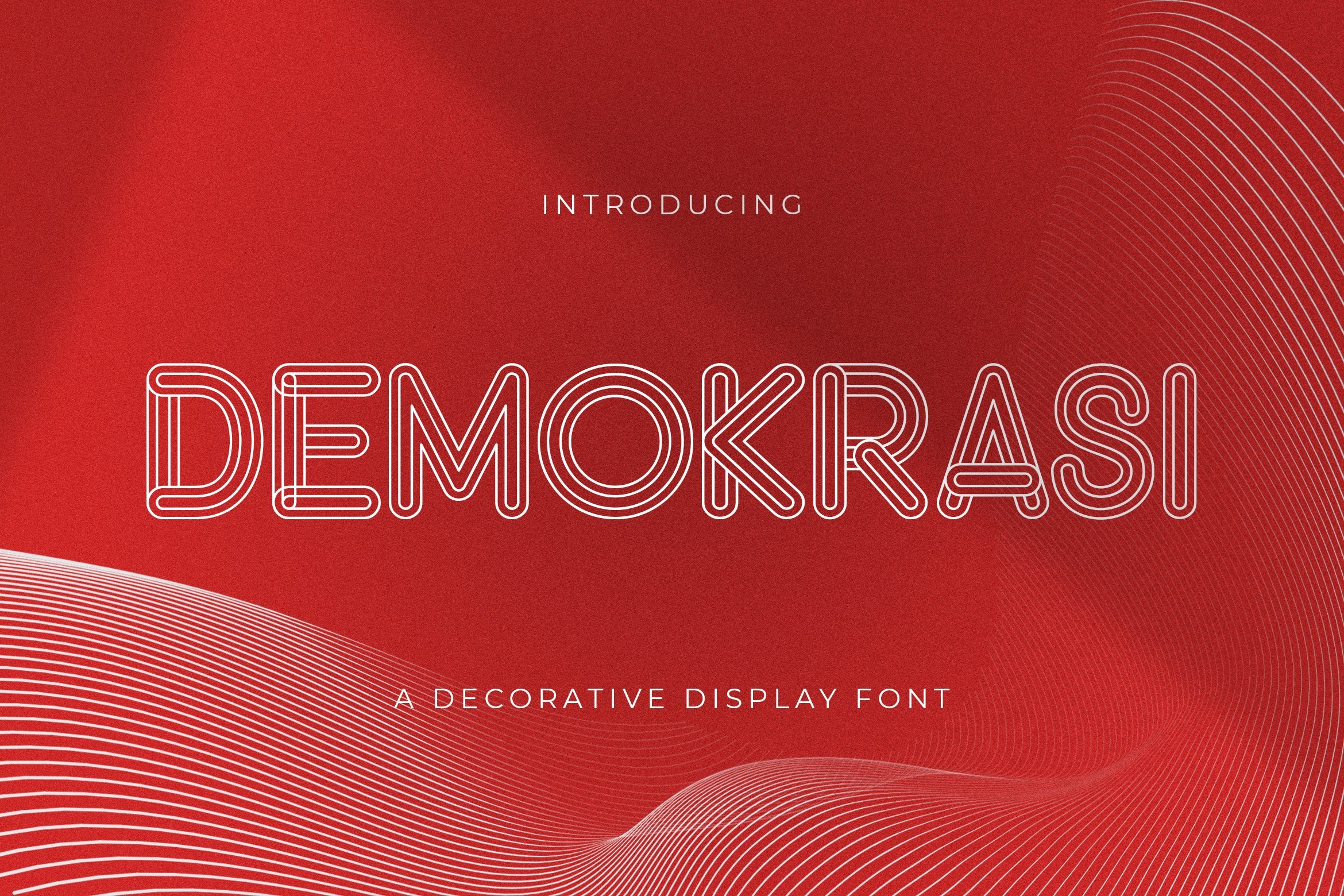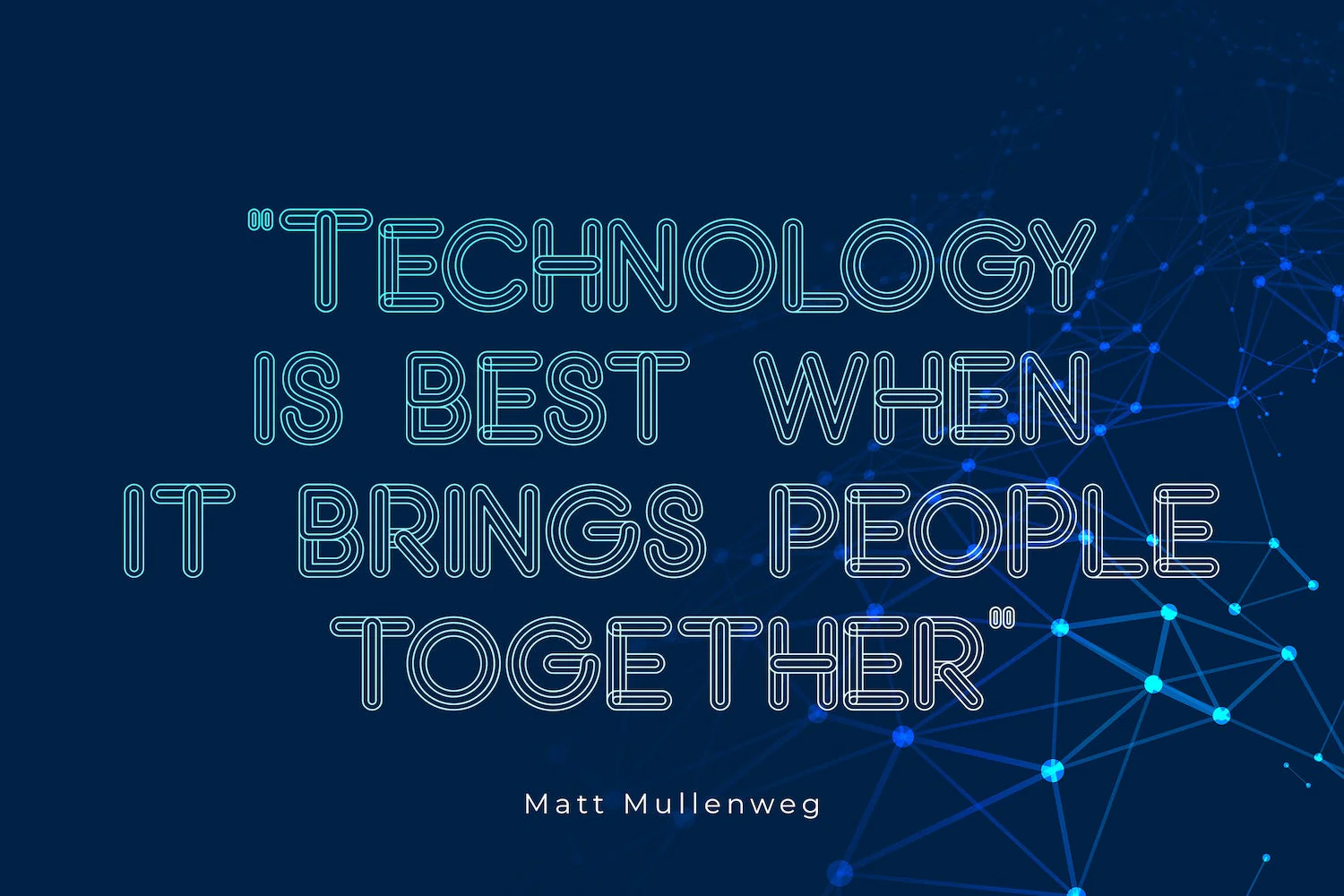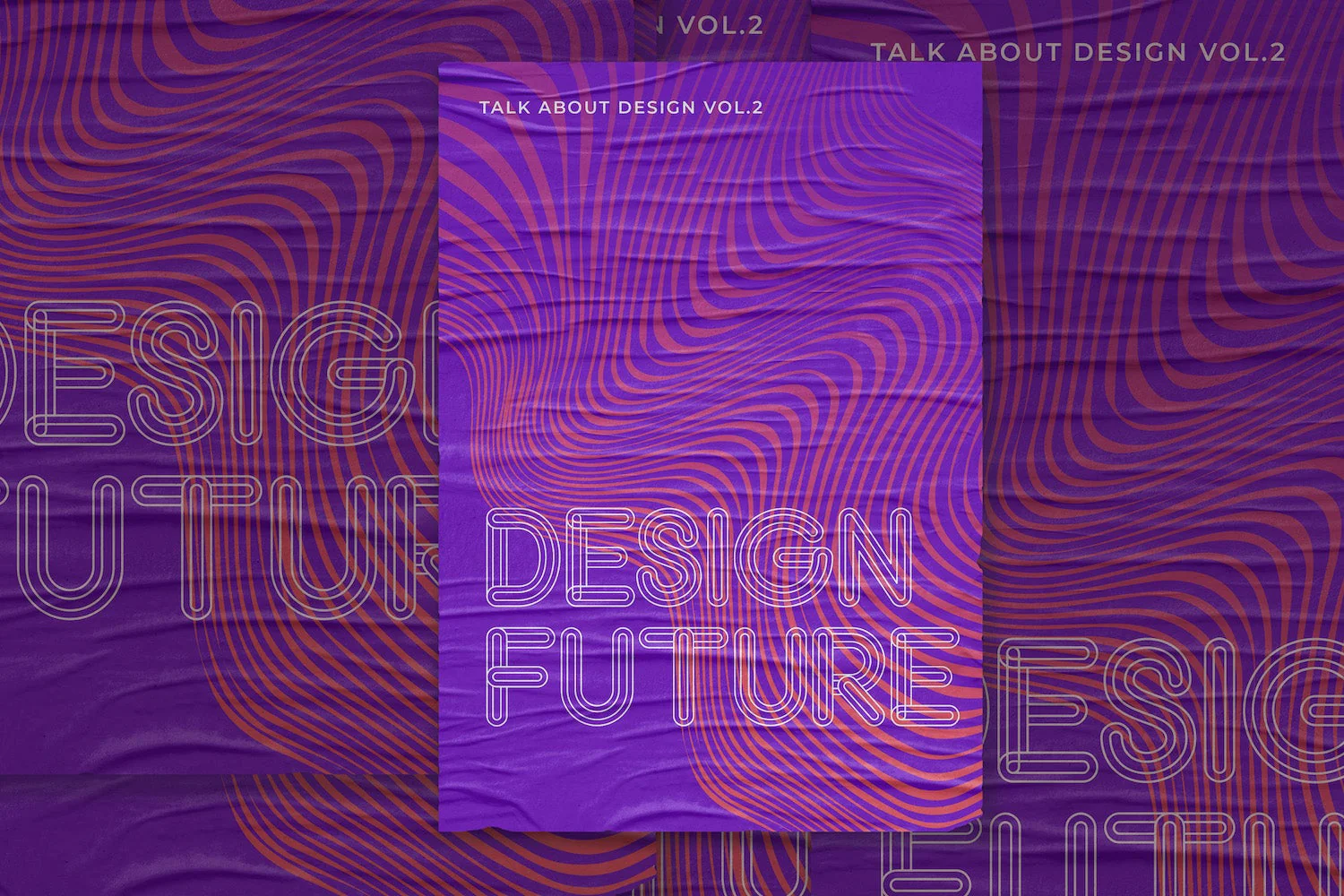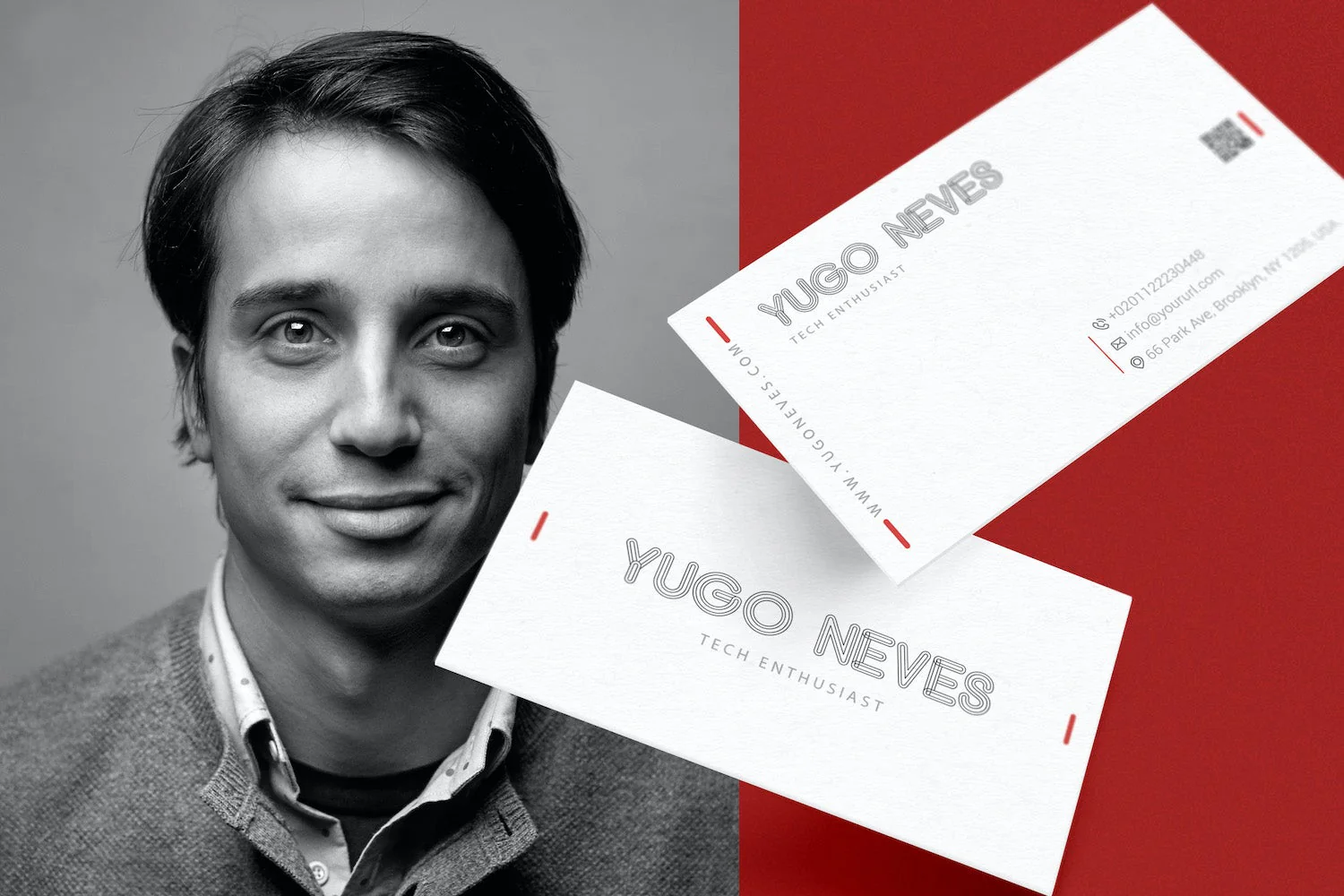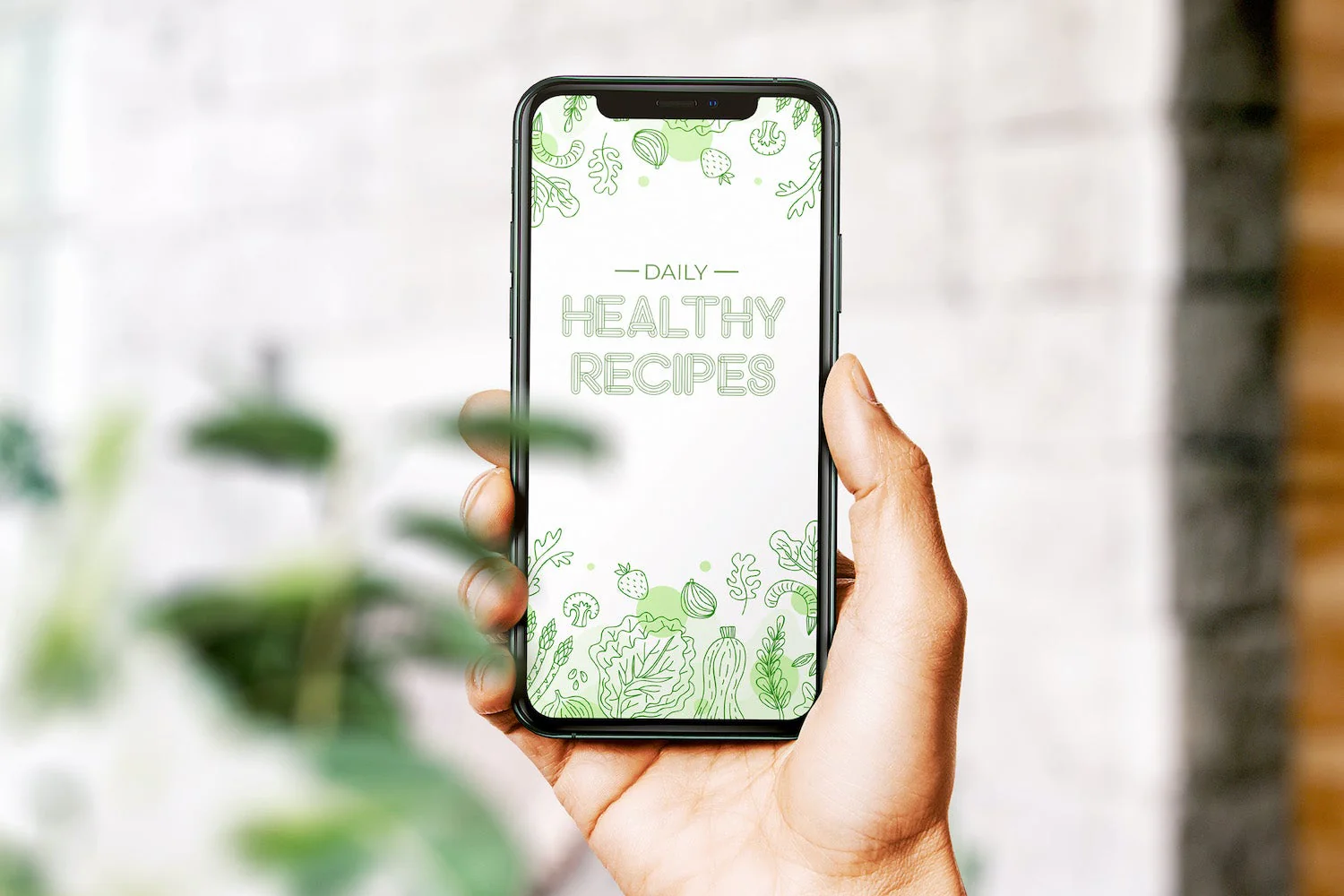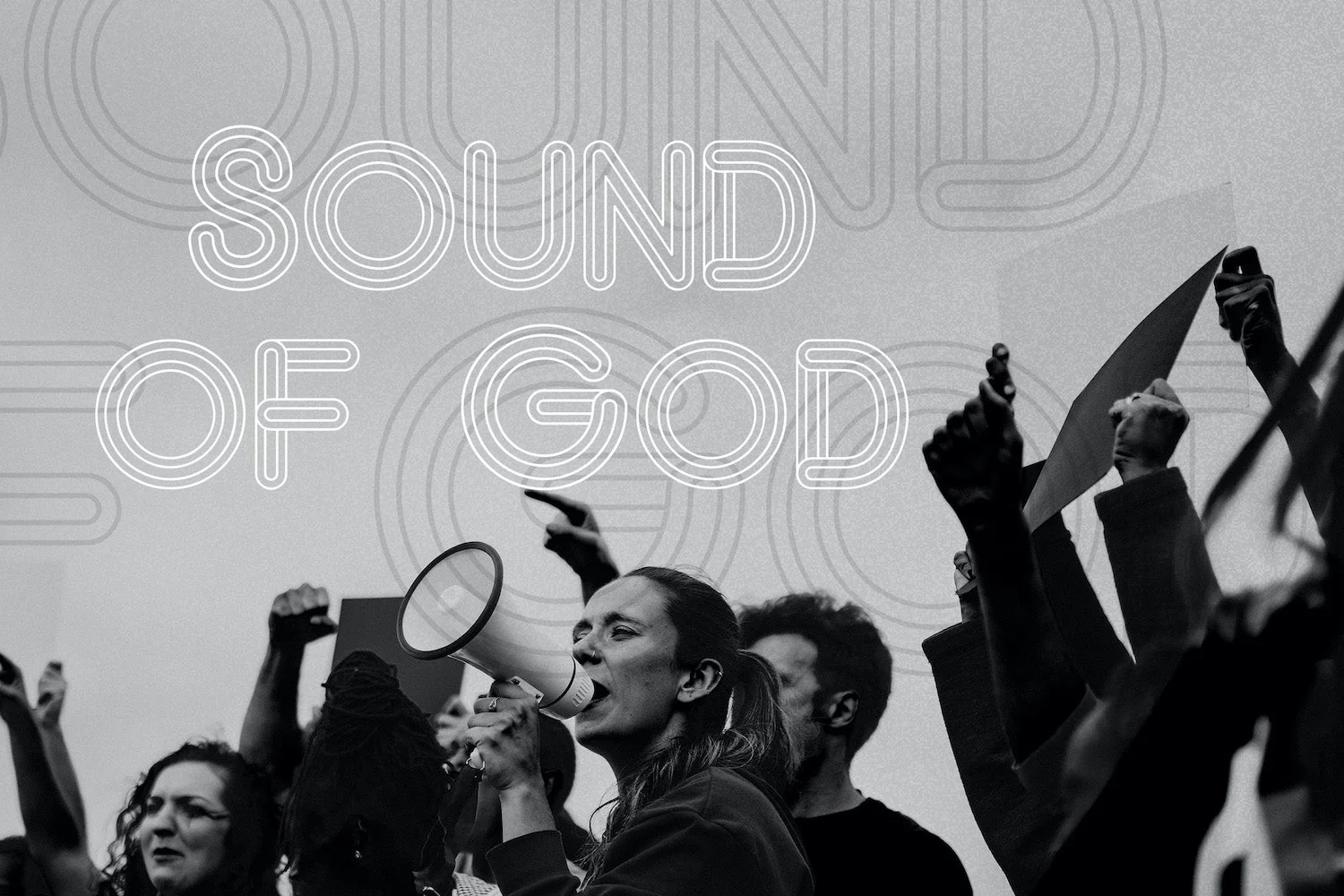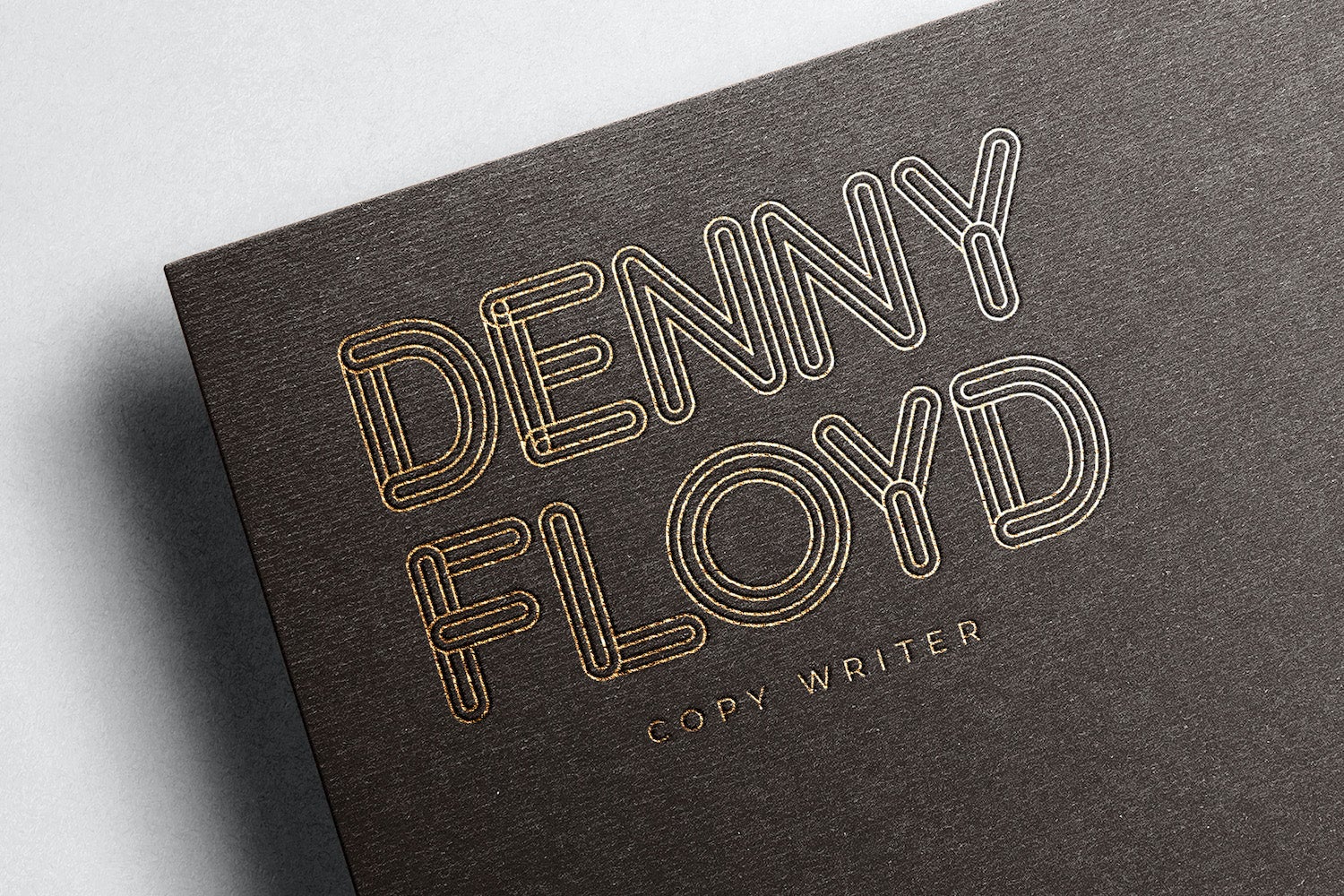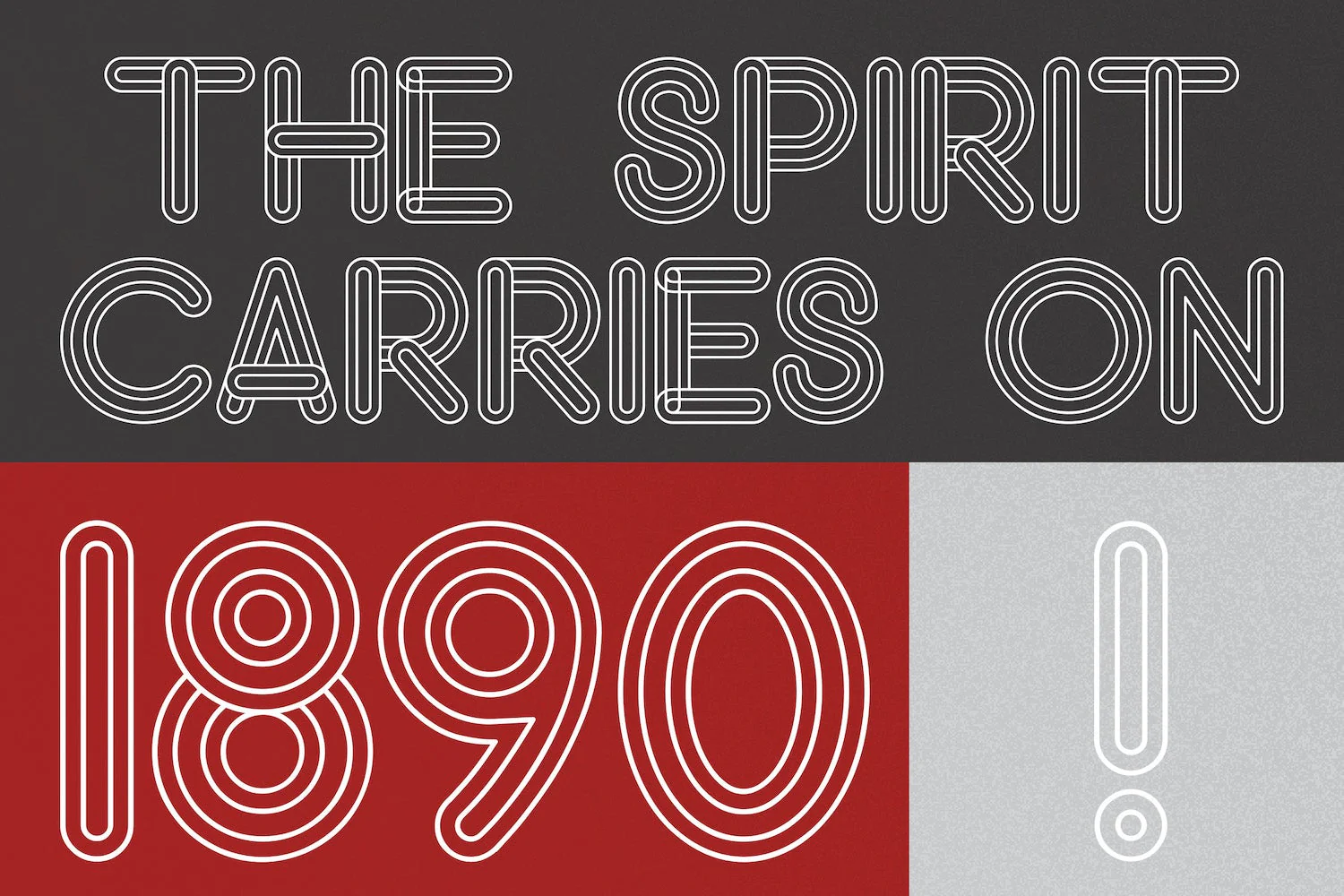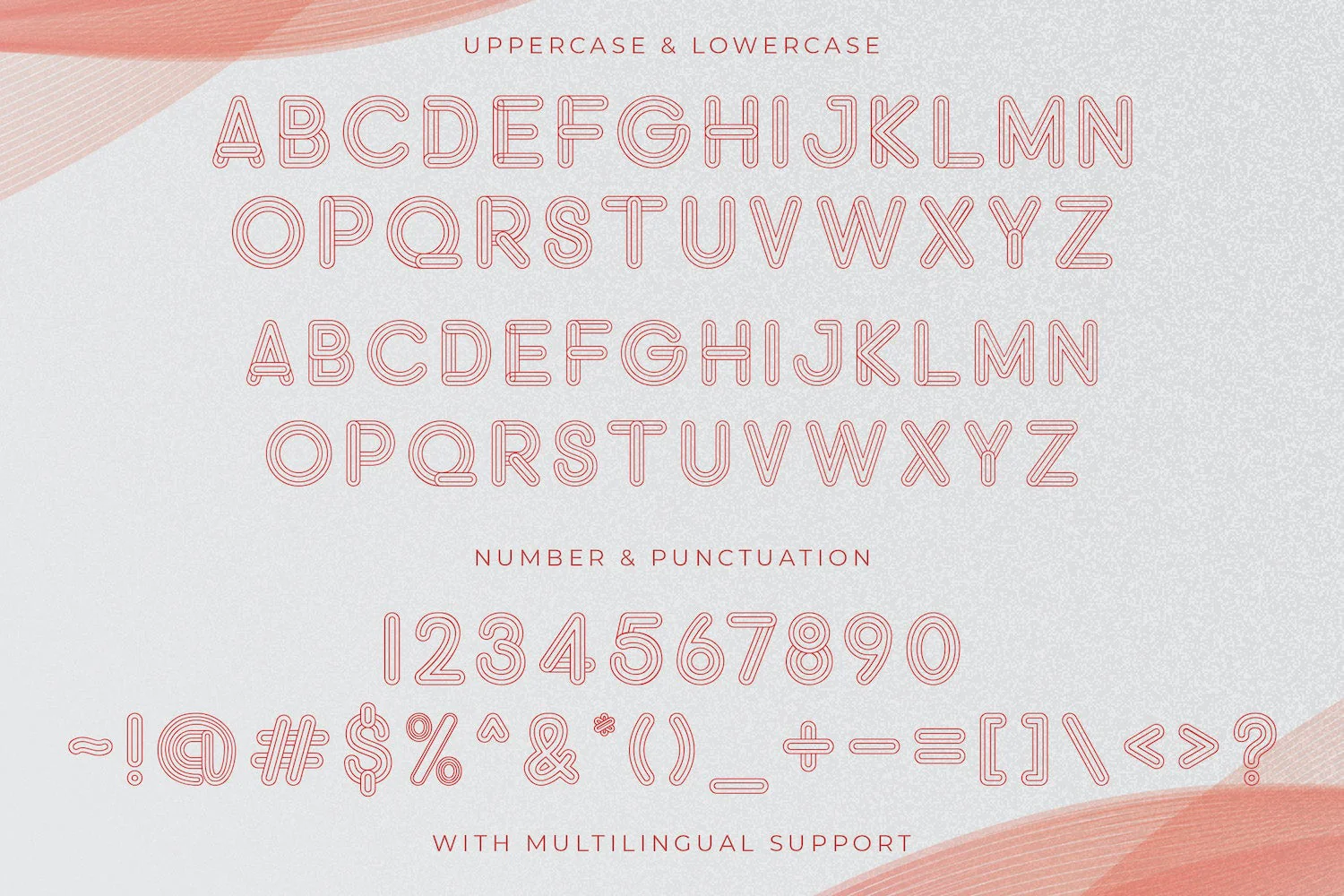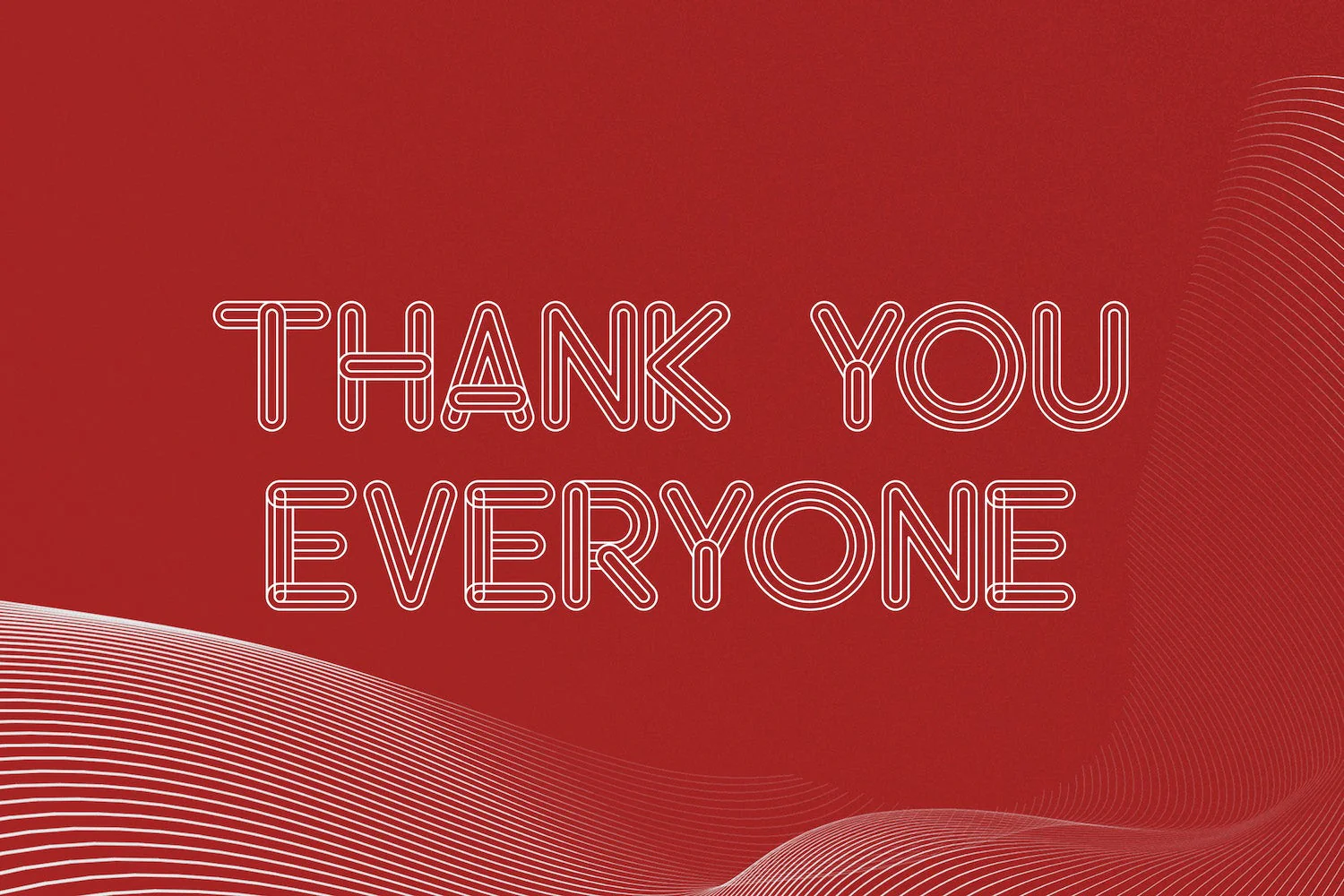
DEMOKRASI - Decorative Display Font
Introducing DEMOKRASI - Decorative Display Font
DEMOKRASI is a unique, stylish and elegant decorative font. This typeface will look truly outstanding in a wide range of contexts.